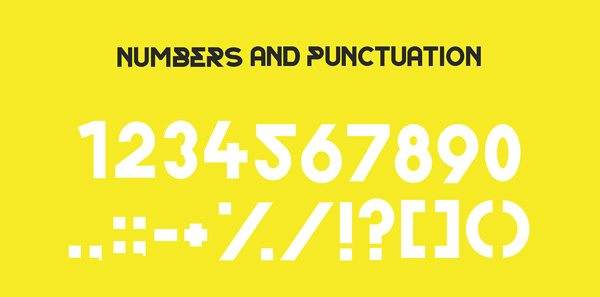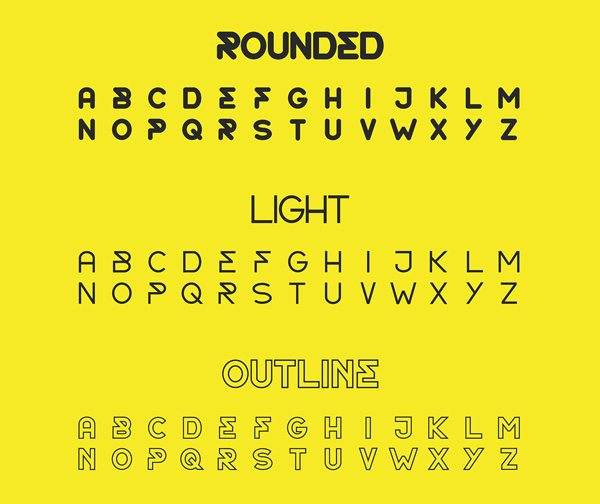
Free Font Of The Day #200 – Order Font
Order Font
Order is an all caps display font availible for free download in four variations.(Light, Outline, Regular, Rounded). Designed by Mike Hill.